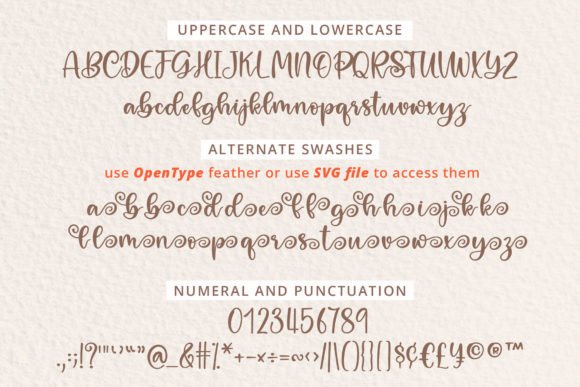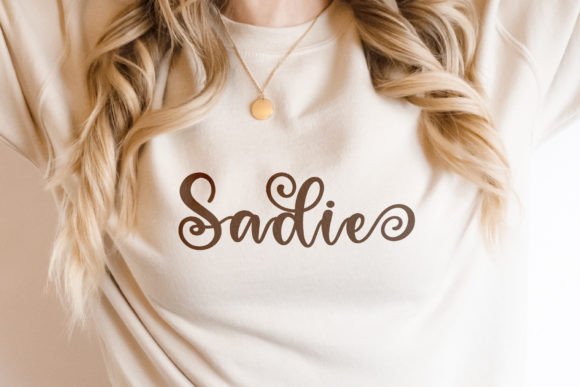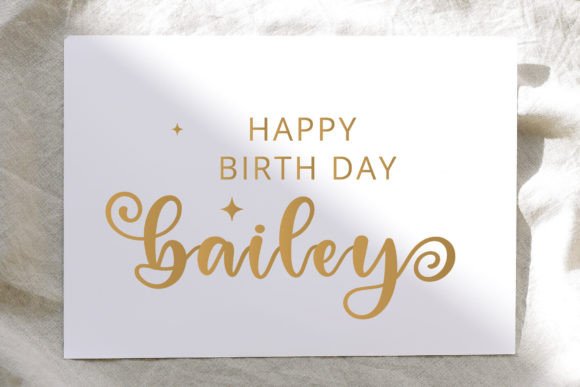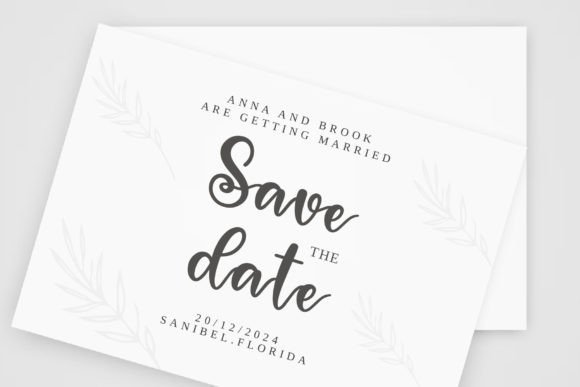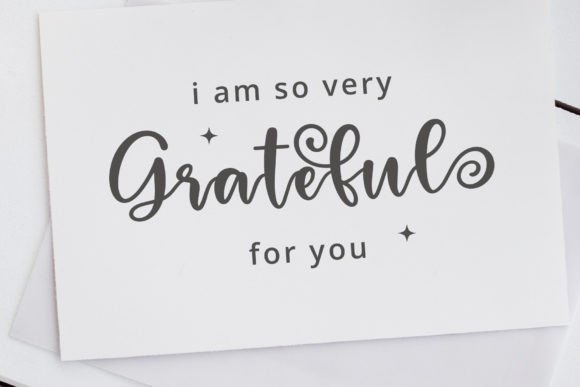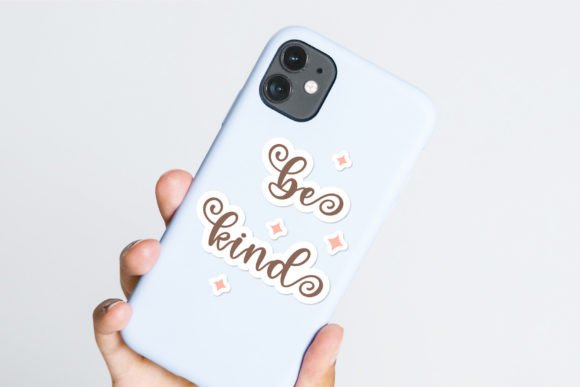
Introducing Farmhouse Flourish Font: Elevate Your Designs with Elegance
Are you on the hunt for a font that exudes charm, sophistication, and a touch of rustic elegance? Look no further than the Farmhouse Flourish Font! This stunning handwritten font is designed to capture the essence of a warm, inviting farmhouse style, perfect for a wide range of creative projects. In this article, we’ll dive into the world of Farmhouse Flourish, exploring its features, uses, and the endless possibilities it offers for designers and crafters alike.
A Versatile and Gorgeous Handwritten Font
Farmhouse Flourish is a beautifully crafted handwritten font that boasts an incredibly versatile style. Its unique blend of rustic charm and refined elegance makes it an ideal choice for various design projects, from wedding invitations and stationery to social media posts and more. Whether you’re a professional designer or a DIY crafter, this font is sure to inspire your creativity and help you produce stunning visual content.
Key Features of Farmhouse Flourish Font
- PUA Encoding: Farmhouse Flourish is PUA encoded, which means you can easily access all the glyphs and swashes, giving you complete control over your designs.
- Handwritten Style: The font’s handwritten style adds a personal touch to your designs, making them feel more approachable and warm.
- Versatility: Use Farmhouse Flourish for a wide range of projects, from formal wedding invitations to casual social media posts.
- Elegance: The font’s elegant lines and curves bring a touch of sophistication to your designs, perfect for creating beautiful stationery art and more.
With Farmhouse Flourish, the creative possibilities are endless! Here are just a few ideas to get you started:
- Wedding Invitations: Create stunning wedding invitations, save-the-date cards, and thank-you notes that set the tone for a beautiful and memorable wedding celebration.
- Stationery Art: Design gorgeous stationery, including notebooks, journals, and greeting cards, that showcase your personal style.
- Social Media Posts: Elevate your social media presence with eye-catching posts, quotes, and graphics that showcase your brand’s personality.
- DIY Crafts: Use Farmhouse Flourish to create beautiful DIY crafts, such as hand-painted signs, chalkboard art, and more.
Why Choose Farmhouse Flourish Font?
With so many fonts available, why choose Farmhouse Flourish? Here are just a few reasons why this font stands out:
- Unique Style: Farmhouse Flourish offers a distinctive style that sets it apart from other fonts, ensuring your designs stand out from the crowd.
- Ease of Use: The font’s PUA encoding makes it easy to access all the glyphs and swashes, saving you time and effort.
- High-Quality Design: Farmhouse Flourish is designed with high-quality craftsmanship, ensuring that your designs look professional and polished.
In conclusion, Farmhouse Flourish Font is a gorgeous handwritten font that offers a unique blend of rustic charm and refined elegance. With its versatility, PUA encoding, and high-quality design, it’s perfect for a wide range of creative projects. Whether you’re a designer or crafter, Farmhouse Flourish is sure to inspire your creativity and help you produce stunning visual content. So why wait? Fall in love with Farmhouse Flourish and elevate your designs to new heights!